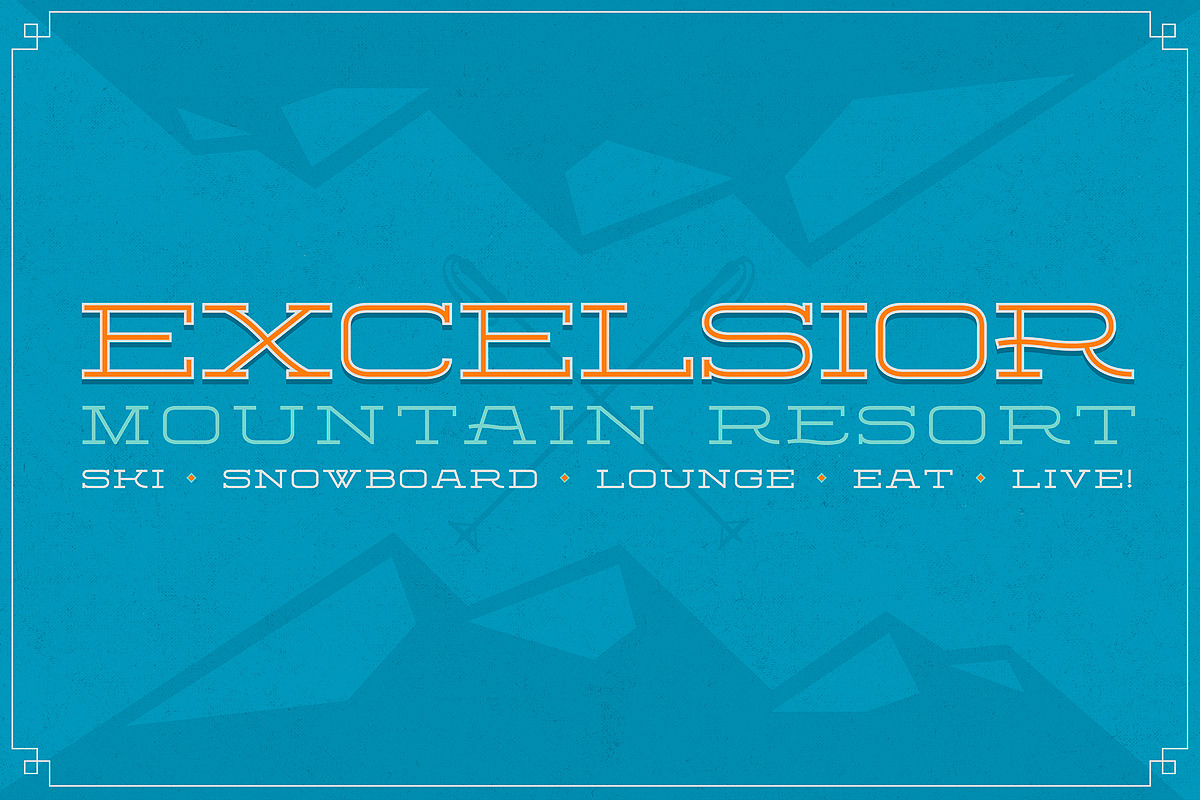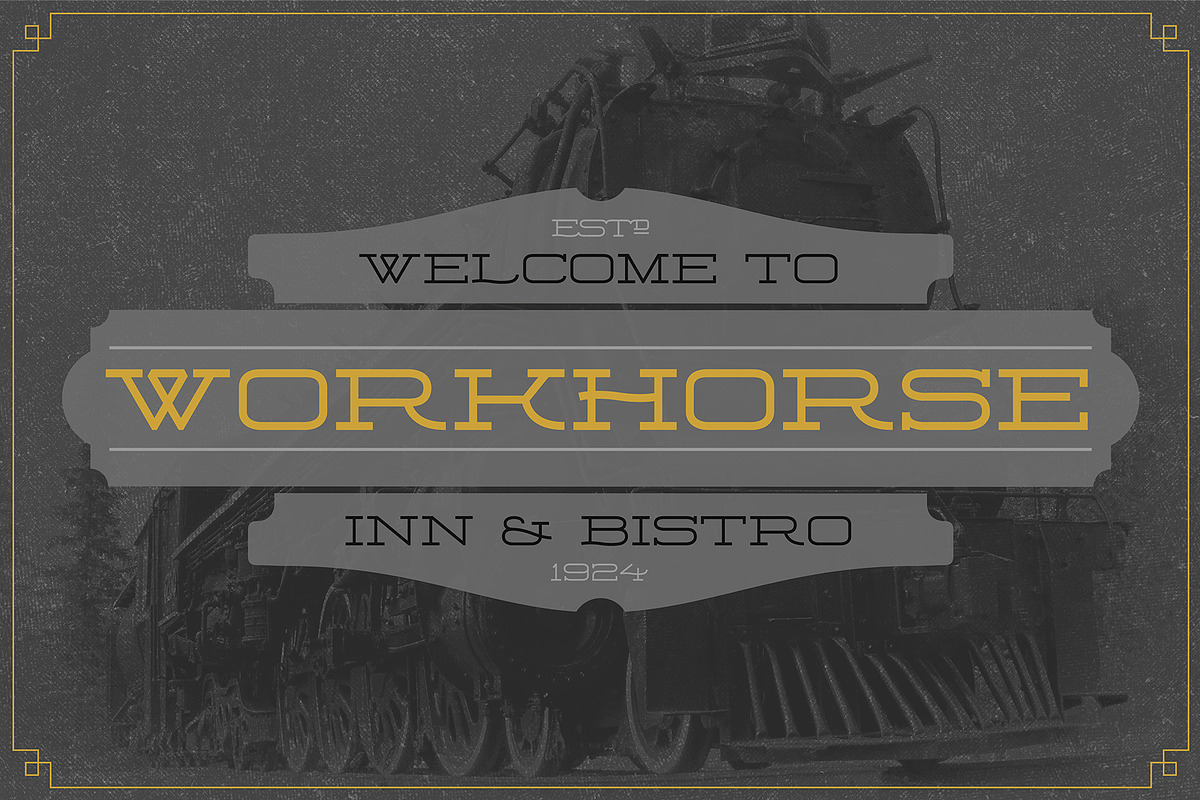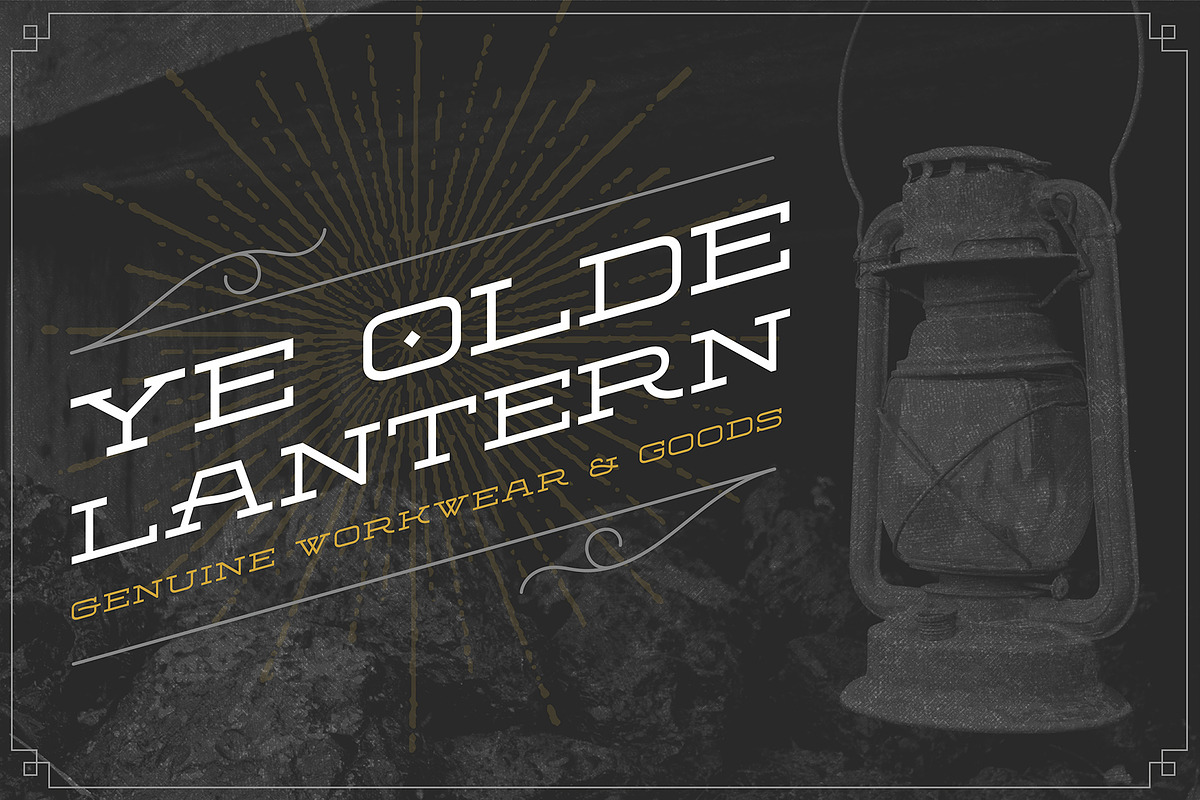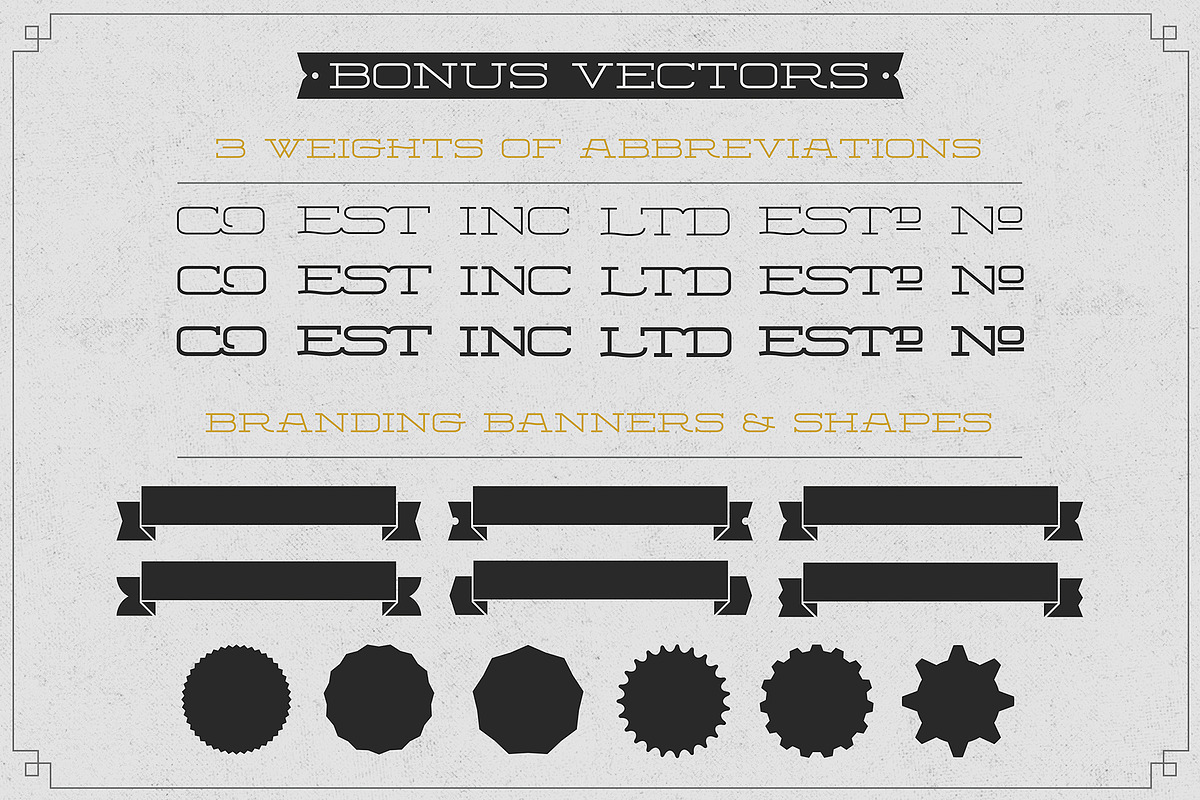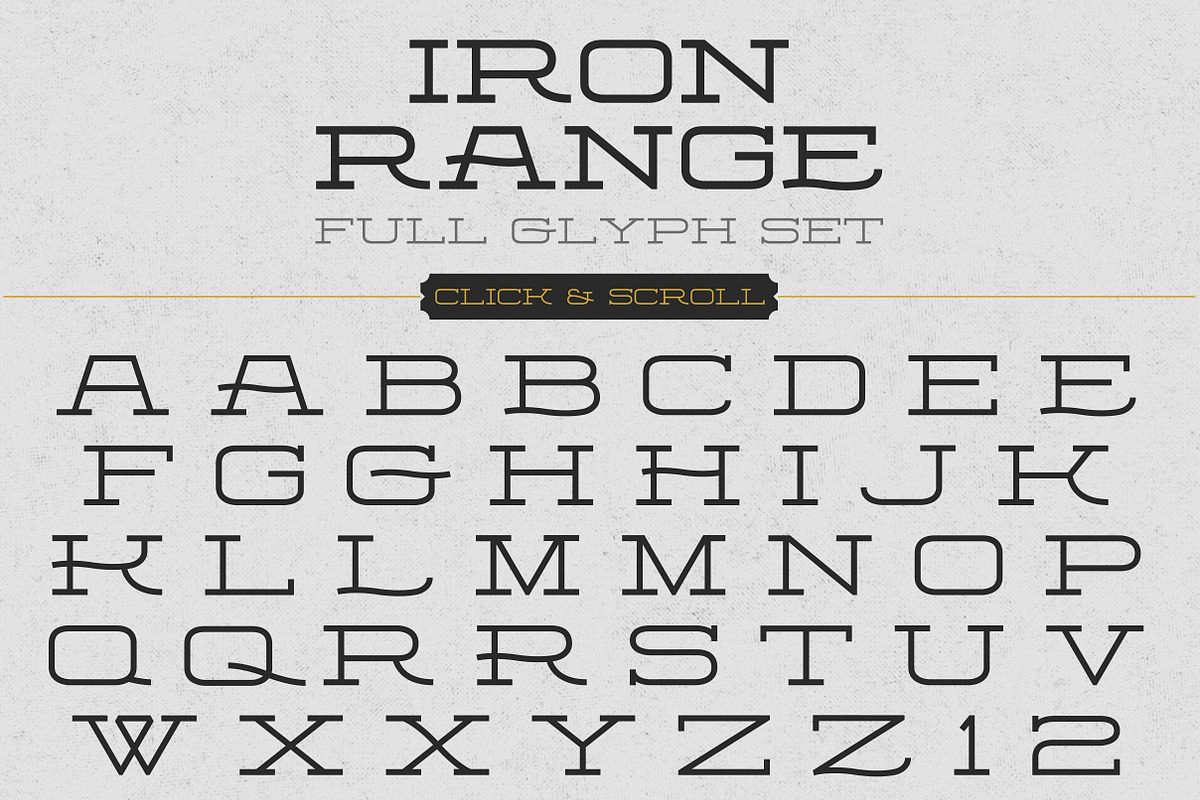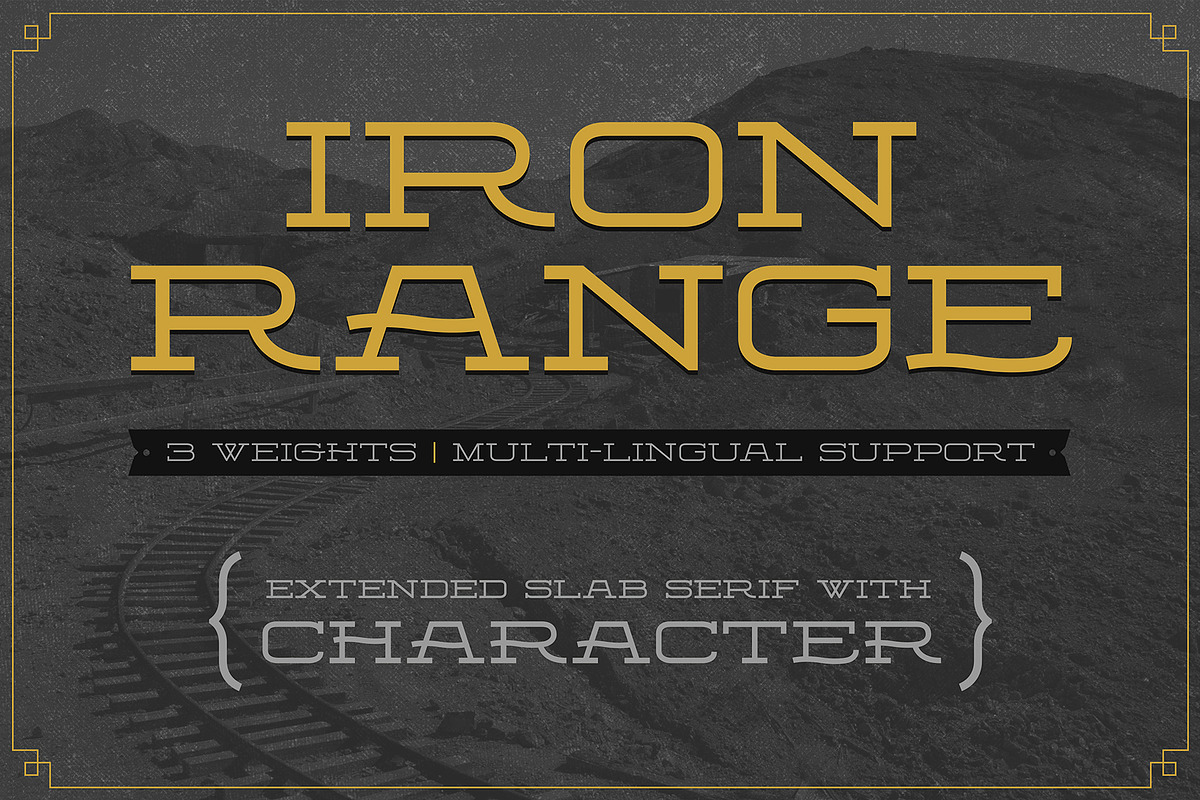
Iron Range Typeface
Introducing Iron Range,
Iron Range is an extended slab serif with a strong presence yet refined character! This font is available in 3 different weights: Light, Regular & Bold. Iron Range is perfect for logos, posters, apparel, labels & anything else you can imagine! It features 12 alternate letters that can be activated by using capitals as well as multi-lingual support for each alternate. Included is a BONUS vector pack to elevate your logo or identity project. Banners love Iron Range; it pairs amazingly with The Grand Label Pack featured in my shop.
- It features 12 alternate letters that can be activated by using capitals as well as multi-lingual support for each alternate.